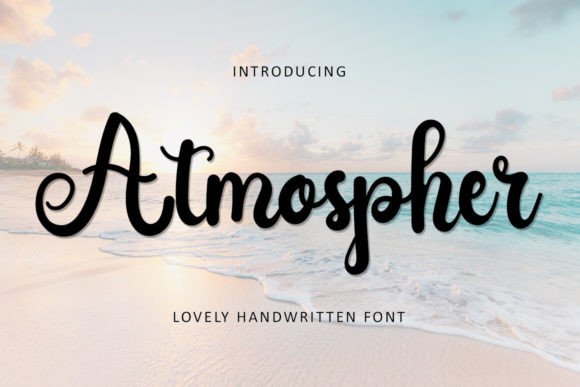
Discover the Enchanting Beauty of Atmospher Font: Elevate Your Designs with Elegance and Freshness
In the world of typography, few fonts manage to capture the essence of beauty, freshness, and elegance as effortlessly as the Atmospher Font. This exceptional typeface is a game-changer for designers and crafters looking to infuse their projects with a touch of sophistication and joyfulness. Whether you’re working on a formal or informal project, Atmospher Font is a versatile asset that can help you achieve your creative goals.
The Pristine and Ethereal Charm of Atmospher Font
Atmospher Font is more than just a typeface; it’s an experience. Its pristine and ethereal quality makes it a standout in the world of typography. The font’s design is characterized by its clean lines, elegant curves, and a sense of lightness that makes it perfect for a wide range of applications. From branding and advertising to packaging and digital media, Atmospher Font can help you create designs that are not only visually stunning but also captivating and memorable.
Bringing Joyfulness to Your Designs
One of the most significant advantages of Atmospher Font is its ability to bring an irresistible joyfulness to your designs. The font’s sweet and enchanting quality makes it perfect for projects that require a touch of whimsy and playfulness. At the same time, its elegance and sophistication ensure that it can be used in formal projects without compromising on style or professionalism. Whether you’re designing a logo, brochure, or website, Atmospher Font can help you create a design that resonates with your audience and leaves a lasting impression.
Simplicity and Elegance: The Hallmarks of Atmospher Font
In today’s fast-paced design world, simplicity is often an afterthought. However, with Atmospher Font, simplicity is at the forefront of its design. The font’s clean and uncluttered design makes it easy to read and understand, even at small sizes. This simplicity also makes it incredibly versatile, allowing you to use it in a wide range of projects without worrying about it overpowering your design. At the same time, the font’s elegance and sophistication ensure that your designs exude a sense of refinement and luxury.
Augment Your Business with an Extraordinary Aesthetic
As a designer or business owner, you’re constantly looking for ways to differentiate yourself from the competition. One of the most effective ways to do this is by using a unique and captivating typeface like Atmospher Font. By incorporating this exceptional font into your designs, you can create a distinctive aesthetic that sets you apart from others in your industry. Whether you’re looking to rebrand your business or simply want to create designs that are more engaging and memorable, Atmospher Font can help you achieve your goals.
Soulful Typography Solutions for Designers and Crafters
Why Choose Atmospher Font?
So why choose Atmospher Font for your next project? Here are just a few reasons why this exceptional typeface stands out:
- Versatility: Atmospher Font is incredibly versatile, making it perfect for a wide range of projects, from formal and informal designs to digital and print media.
- Elegance: The font’s elegant and sophisticated design ensures that your designs exude refinement and luxury.
- Simplicity: Atmospher Font’s clean and uncluttered design makes it easy to read and understand, even at small sizes.
- Joyfulness: The font’s sweet and enchanting quality makes it perfect for projects that require a touch of whimsy and playfulness.
| Font Name | Atmospher Font |
| Author | Bill Kiss Studio |
In conclusion, Atmospher Font is an exceptional typeface that can help you elevate your designs with elegance, freshness, and beauty. Its pristine and ethereal quality, combined with its versatility and simplicity, make it a valuable asset for designers and crafters. Whether you’re looking to create designs that are more engaging, memorable, or simply want to differentiate yourself from the competition, Atmospher Font is the perfect choice. So why wait? Discover the enchanting beauty of Atmospher Font today and take your designs to the next level.